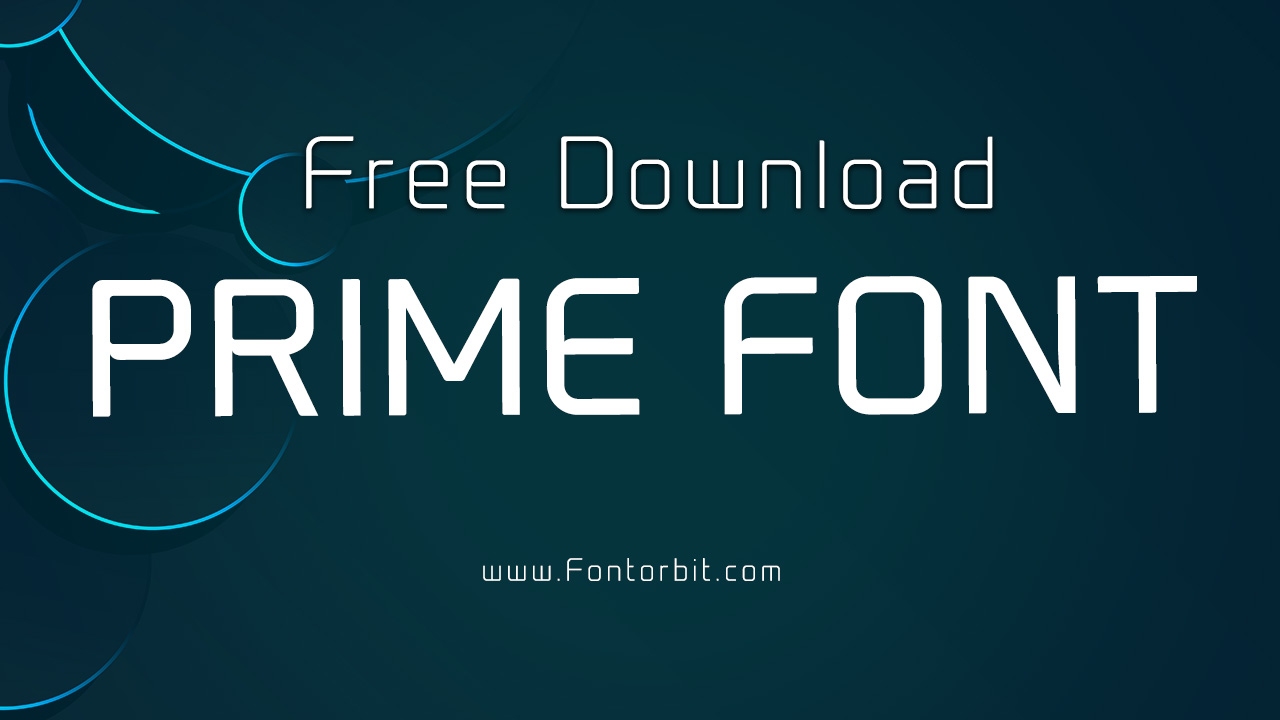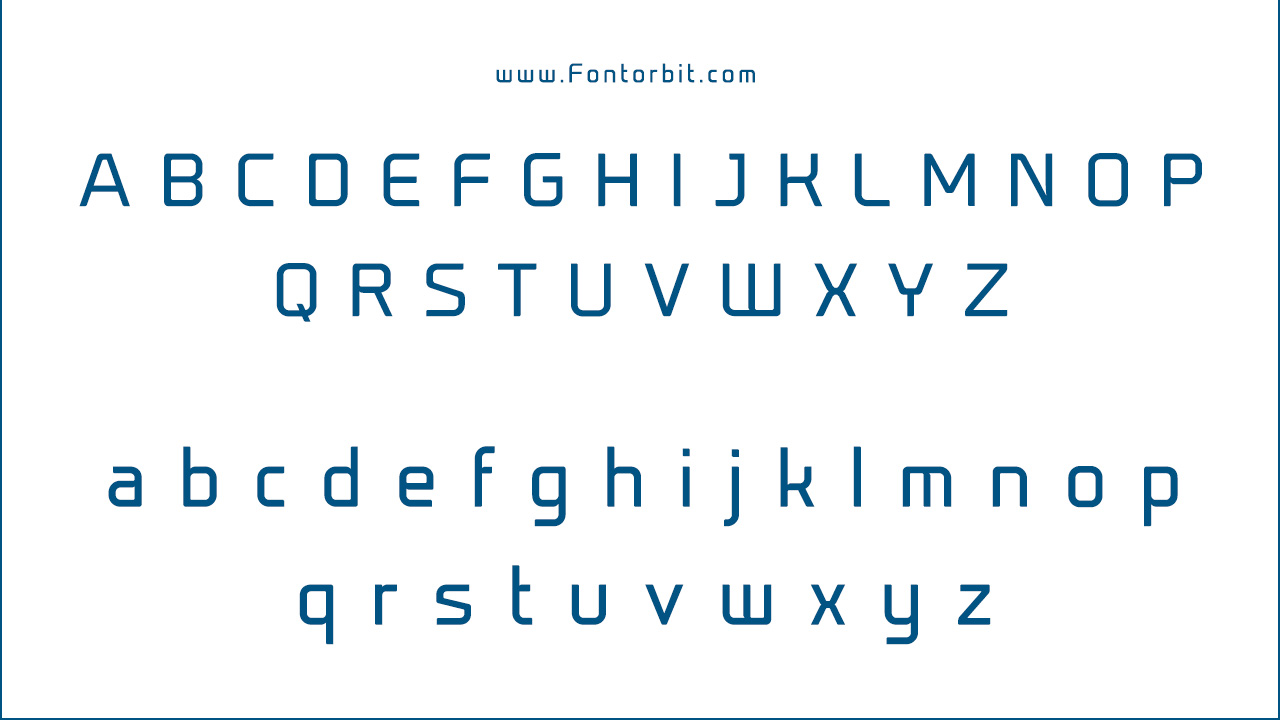
Prime Font, designed by Max Pirsky, is a striking typeface prominently used in the branding of Prime Hydration. This font is released for commercial use and features bold and impactful characters that make it stand out, especially on sports drink bottles and other high-visibility packaging.
The font family includes two styles: Prime Regular and Prime Light. Its modern, clean design enhances brand recognition and delivers a sleek, effective appearance across various media.
Prime Font Family Includes
- Prime Regular
- Prime Light
Where To Use
Prime Font is perfect for branding, especially in the beverage industry, where bold, eye-catching typography is essential. It works well on packaging, promotional materials, and websites that require a modern, impactful look. The font’s strength lies in its simplicity and clarity, making it suitable for physical and digital media.
Prime Font stands out for its bold, clean design, making it an excellent choice for impactful branding and eye-catching packaging. While it is free for personal use, remember that commercial projects require a specific license to ensure compliance. Its modern aesthetic helps brands make a strong impression in the competitive market.
3.What Are The Qualities Of Prime Font?
Prime Font is known for its clean lines and modern look, which make it ideal for branding and packaging. The font’s light style is particularly effective in creating a sleek and professional appearance suitable for various design applications.